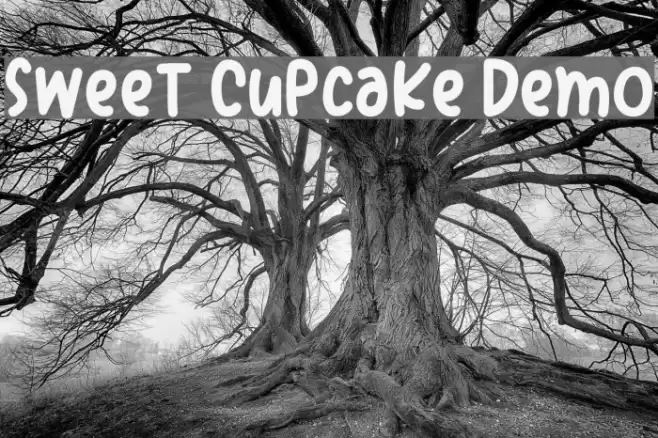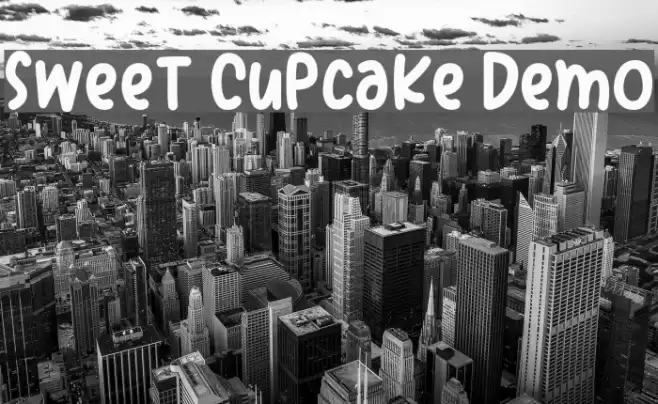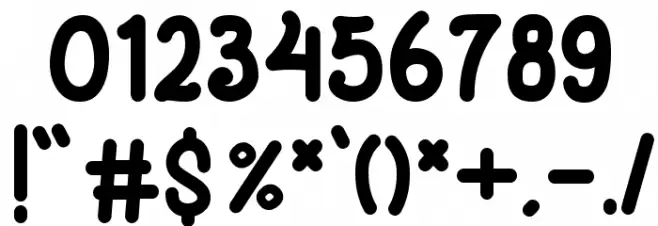
Sweet Cupcake Demo Font
Sweet Cupcake Demo Description
This playful and whimsical font features rounded, bold characters with a hand-drawn aesthetic. The letters have a consistent thickness, creating a uniform appearance that is both approachable and friendly. The font's curves and loops give it a lively and energetic feel, making it ideal for projects that require a fun and informal touch. The numerals and special characters maintain the same playful style, ensuring cohesion across all text elements. This font is perfect for designs that aim to convey warmth and creativity.
A playful, hand-drawn font with rounded, bold characters and a whimsical style from Uncategorized fonts.
- Proposed Projects: Ideal for children's books, playful branding, greeting cards, and casual invitations.
- Overall Style: Playful
- Use Case: Headlines, Logos, Casual Text